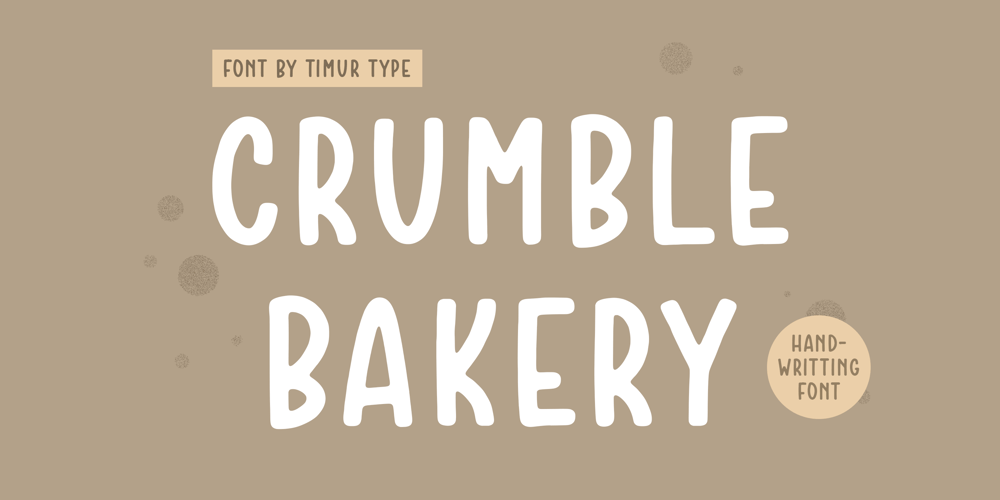
Crumble Bakery Font Family was designed by Wara Sigit Tri Pamungkas and published by Timurtype. Crumble Bakery contains 1 styles and family package options. Introducing by Timur typeProudly Present, Crumble Bakery A Handwritten FontCrumble Bakery is perfect for product packaging, branding project, megazine, social media, wedding, or just used to express words above the background.Crumble Bakery also multilingual support.Enjoy the font.Thank you!